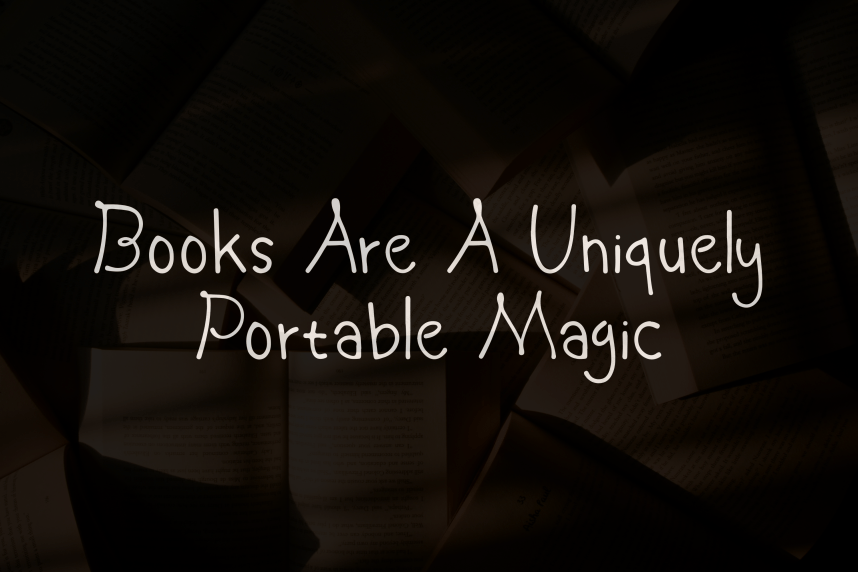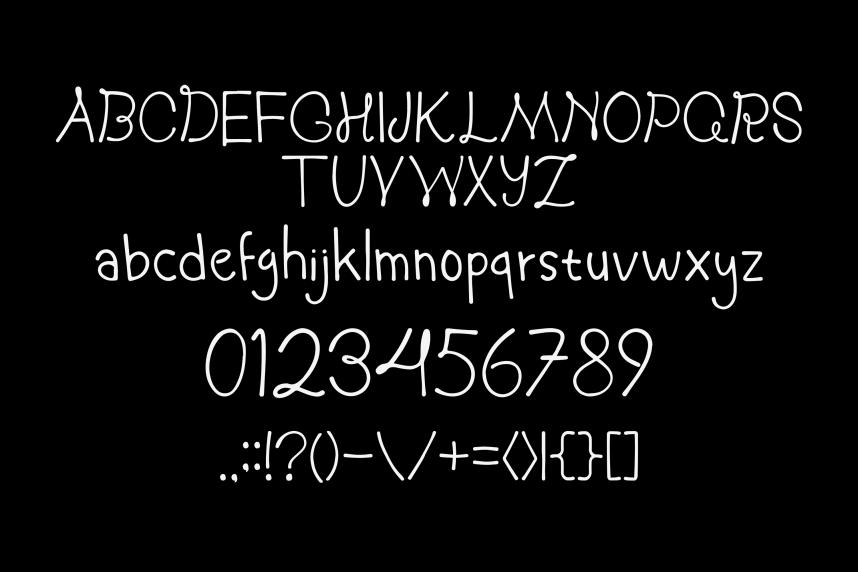
Cosan handwritten Font
Cosan handwritten Font is a handwritten font with a natural, casual style — simple and versatile, great for book titles or menu lists.